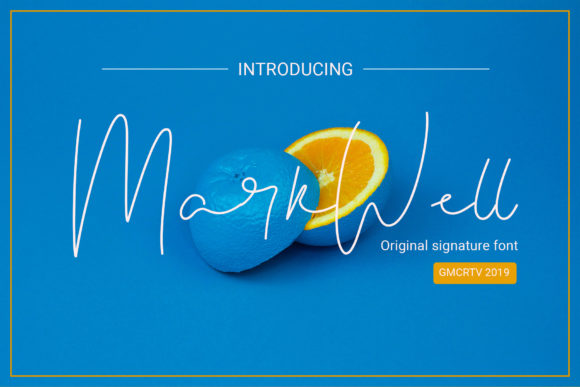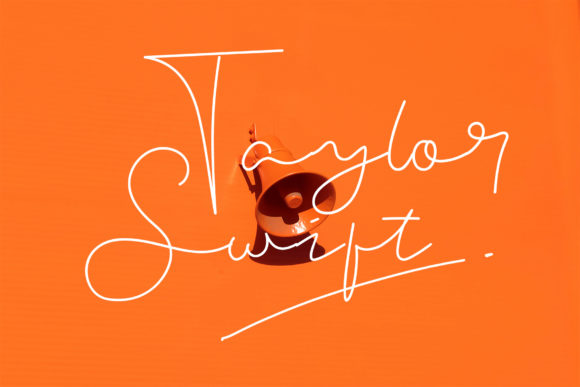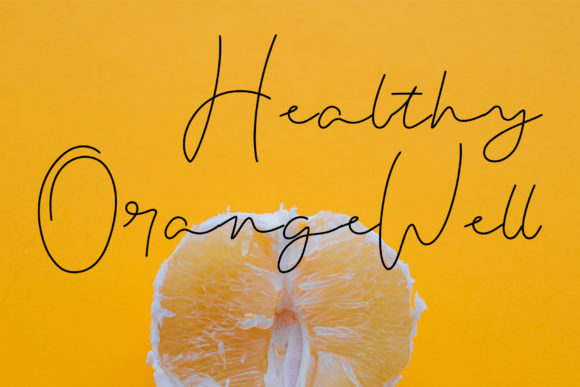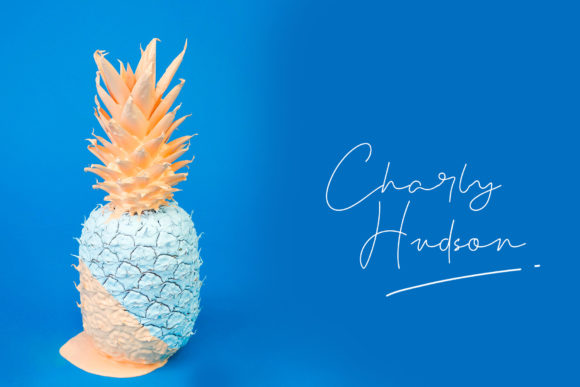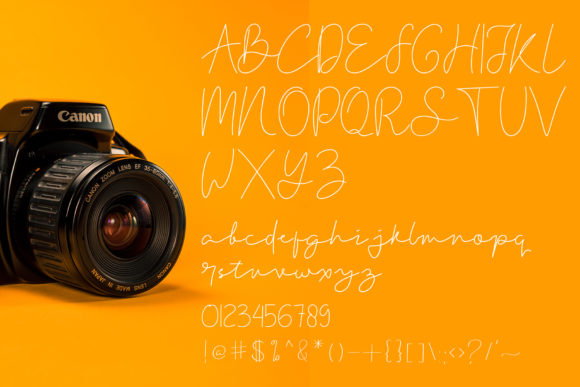
Markwell Font
About Markwell Font
The Markwell is an amazing signature font. This original handwritten script is perfect to add an authentic and elegant touch to your designs.